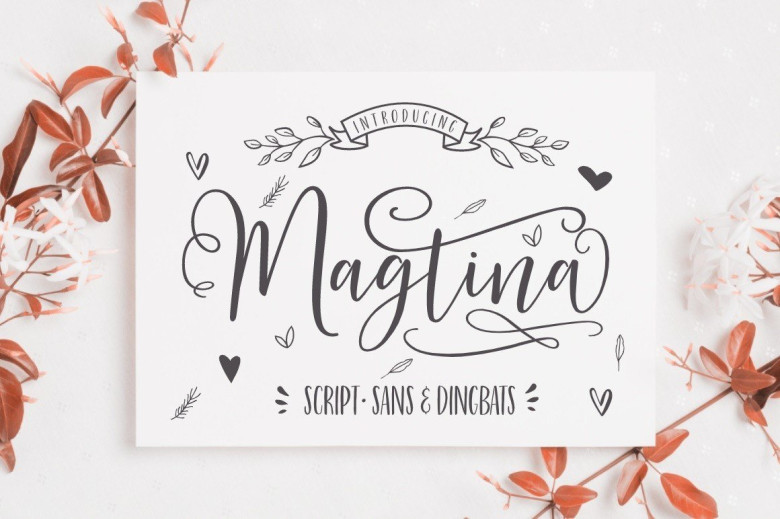
Magtina Calligraphy Script Font
Introducing Magtina Font, a pack of two super stylish fonts including a calligraphy script and bold brush script that are all sure to make a statement. Inspired by scribbled notes alongside fashion pages, illustrations, artwork and collages, all two fonts encompass a hint of sass and ultra stylish vibes that will be sure to ignite a creative spark within.